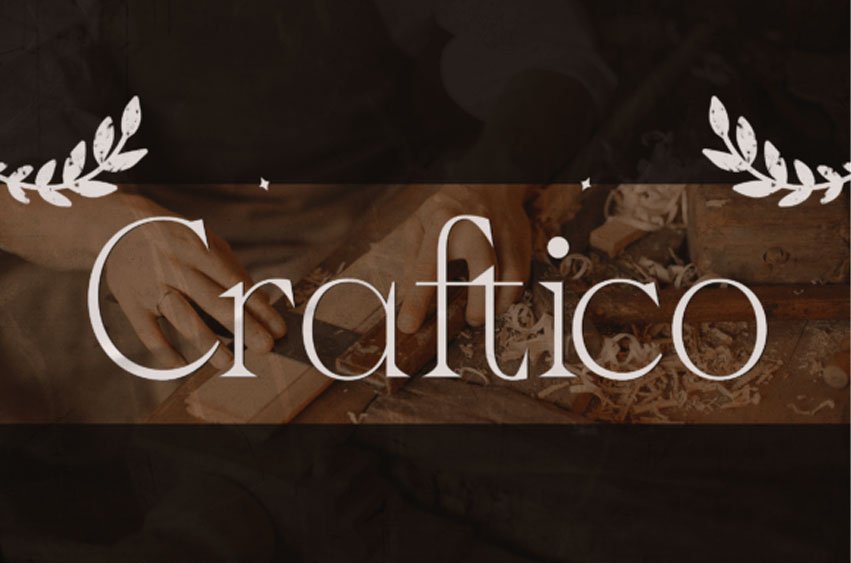
Craftico Font is an elegant serif font that will bring a touch of luxury and grace to all your design projects.
With its sleek lines, delicate serifs, and the graceful contrast between thick and thin strokes, Craftico Font is designed to exude a sophisticated aura and a timeless yet modern classic beauty.